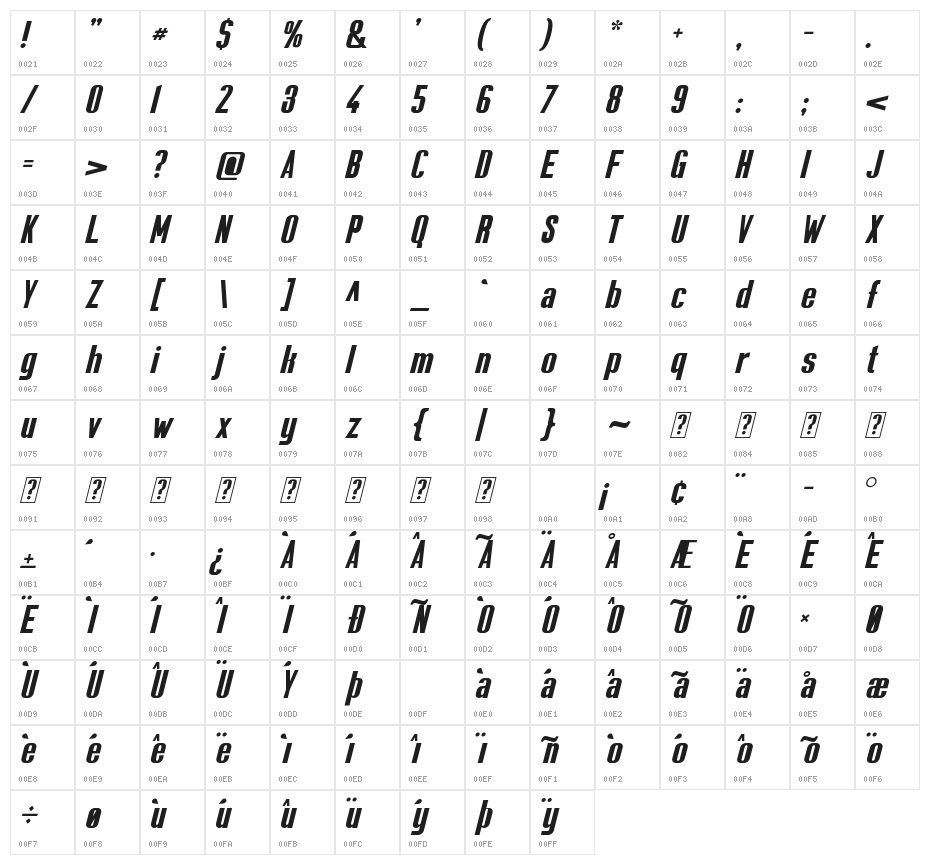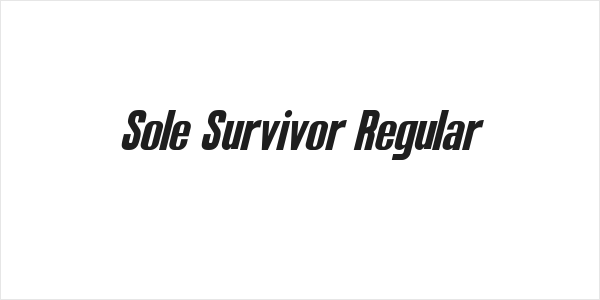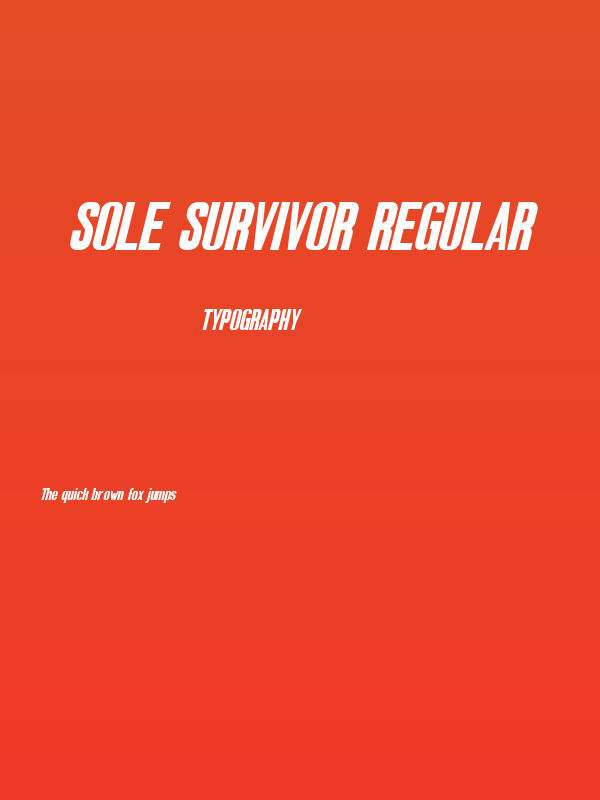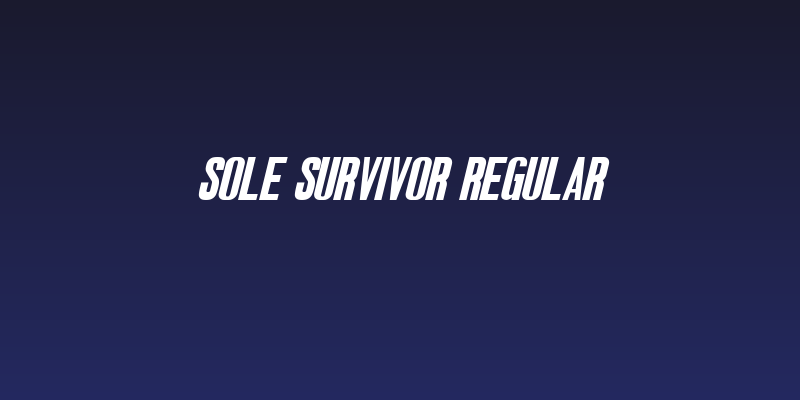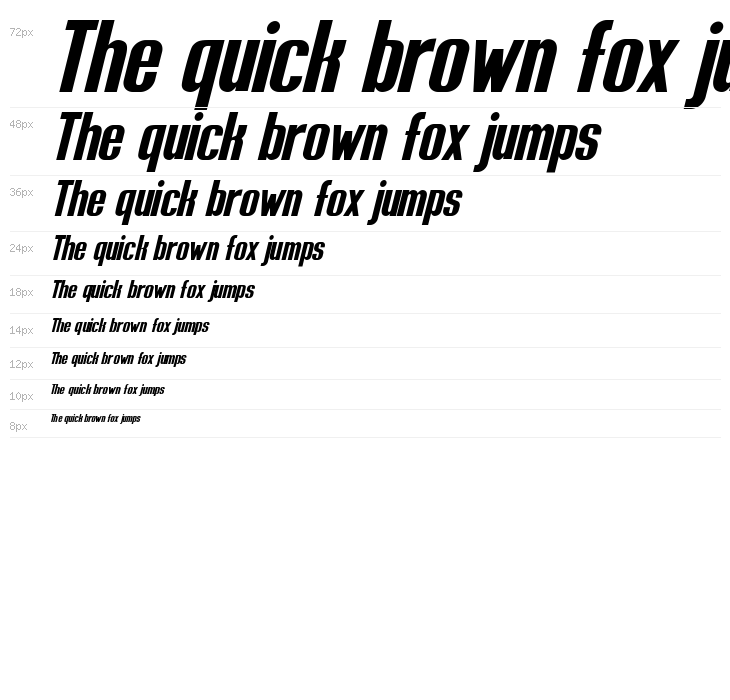
Sole Survivor Regular Font
Sole Survivor Regular Description
This font features a bold and dynamic style with a strong presence. The characters are slightly condensed, giving a compact and impactful look. The strokes are thick, providing high contrast and making the letters stand out prominently. The italic slant adds a sense of movement and urgency, making it suitable for attention-grabbing designs. The uppercase and lowercase letters maintain a consistent style, while the numerals and special characters complement the overall design. This font is ideal for projects that require a bold and modern aesthetic.
| Proposed Projects | Ideal for headlines, posters, branding, and advertising materials that require a strong visual impact. |